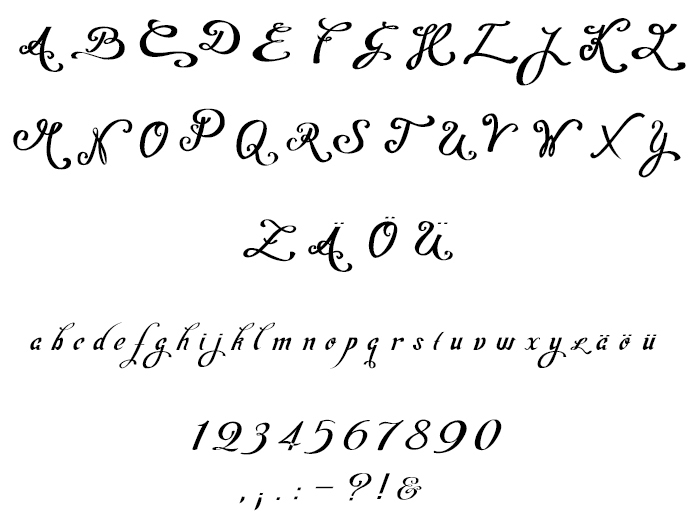
Stephanie Dresemann
In Guido Schneider's type design class, Hamm, Germany-based Stephanie Dresemann created the curly script typeface Hawaii Mahalo (2015). In 2012, she started her studies at Hochschule Niederrhein. |